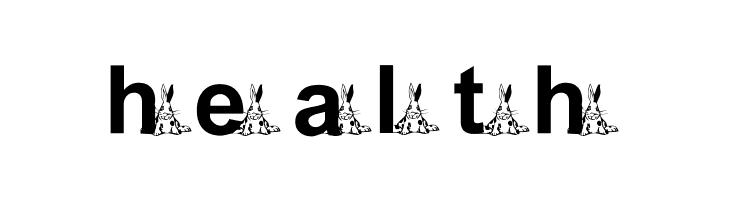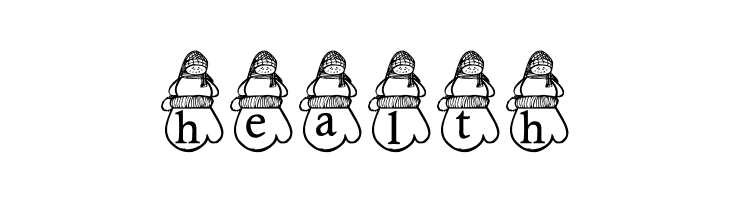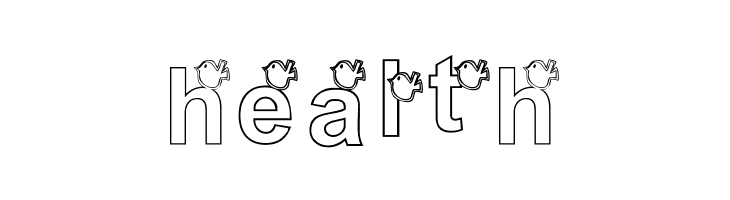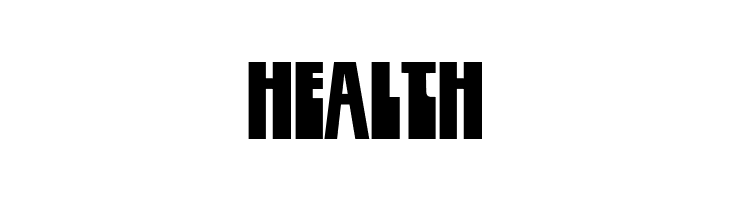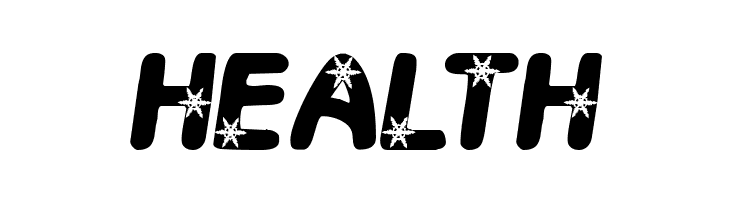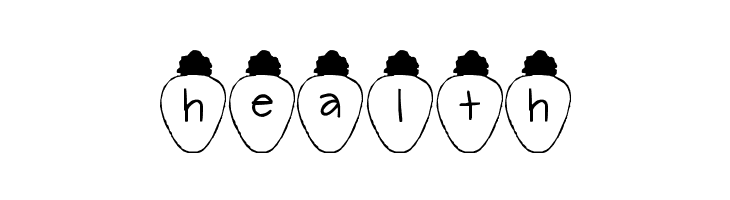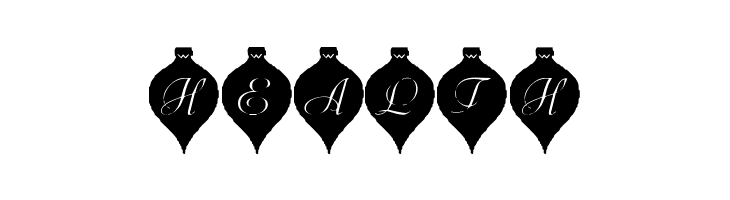
A playful, Easter-themed decorative font with intricate details.
A decorative serif font with each character encased in a mitten design.
A Halloween-themed decorative font with skulls and bats integrated into the characters.
A decorative font with snowman-themed letters, perfect for festive projects.
A bold, Halloween-themed decorative font featuring jack-o'-lantern and pumpkin motifs.
A bold, decorative font with snowflake motifs for a festive look.
A decorative font with bold letters and cardinal bird illustrations, perfect for festive designs.
A festive font with characters inside Christmas light bulb shapes.
An elegant, ornament-themed decorative font with high contrast script characters.
A decorative, holiday-themed font with script letters inside ornate ornaments.